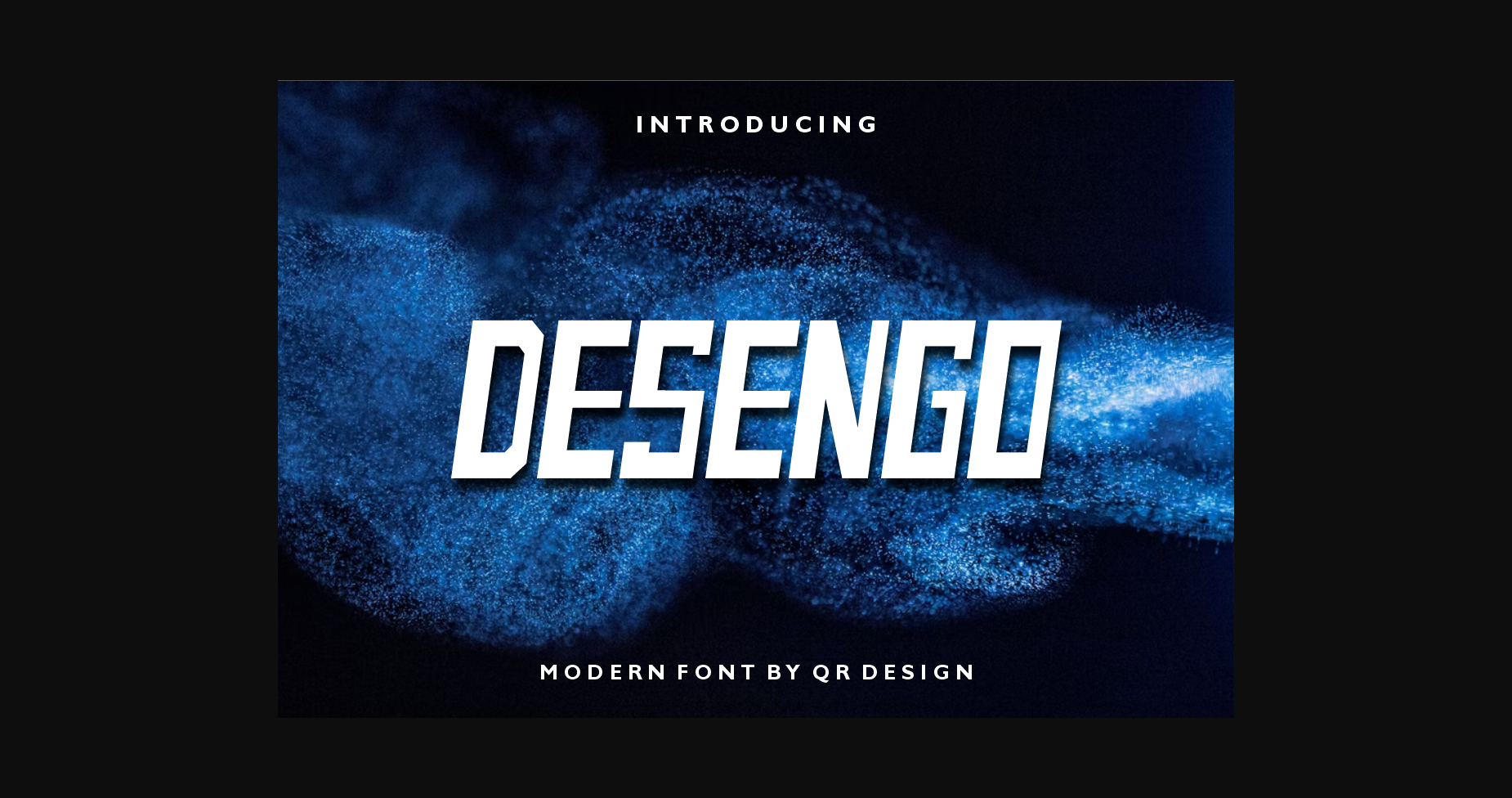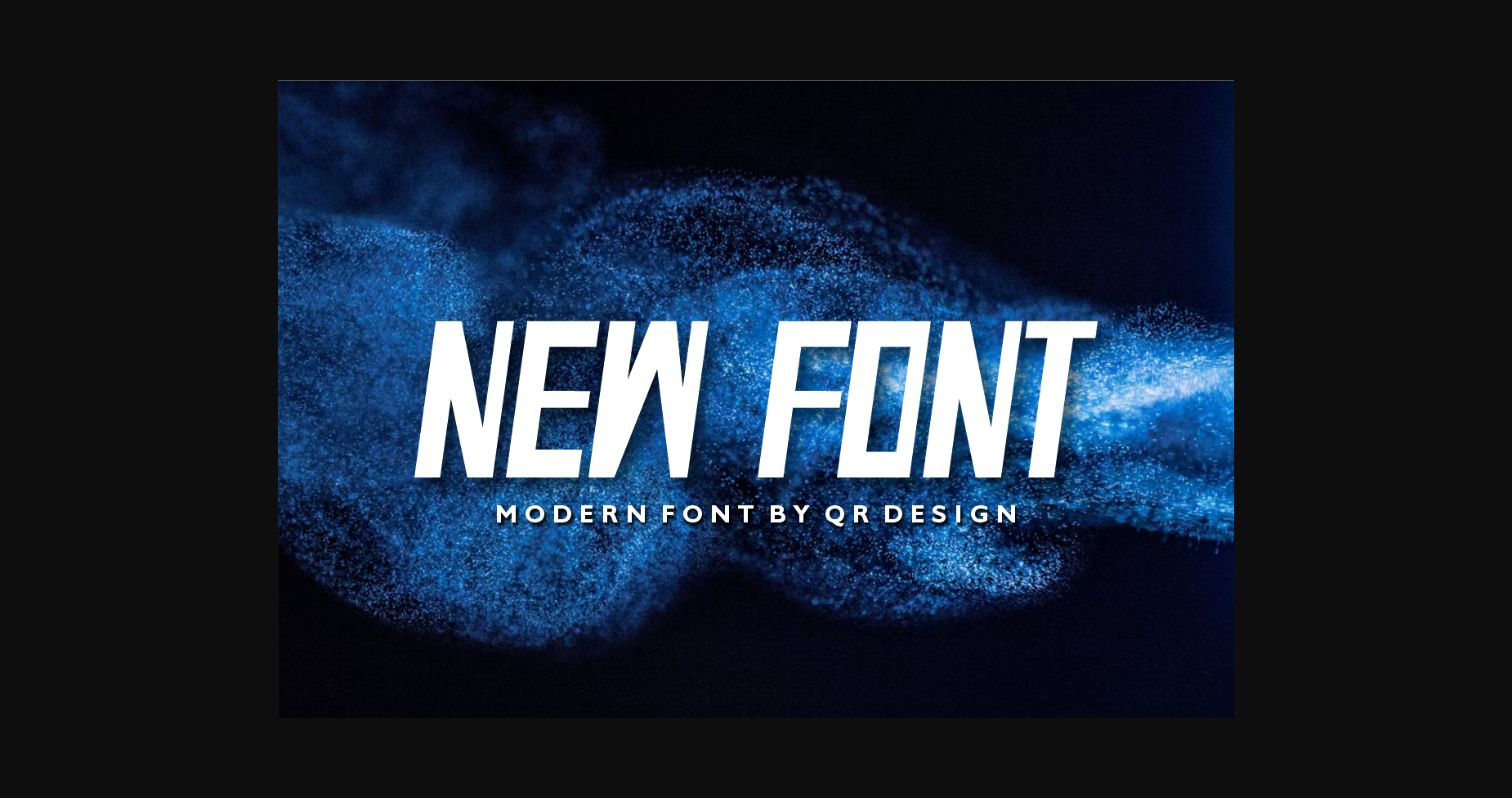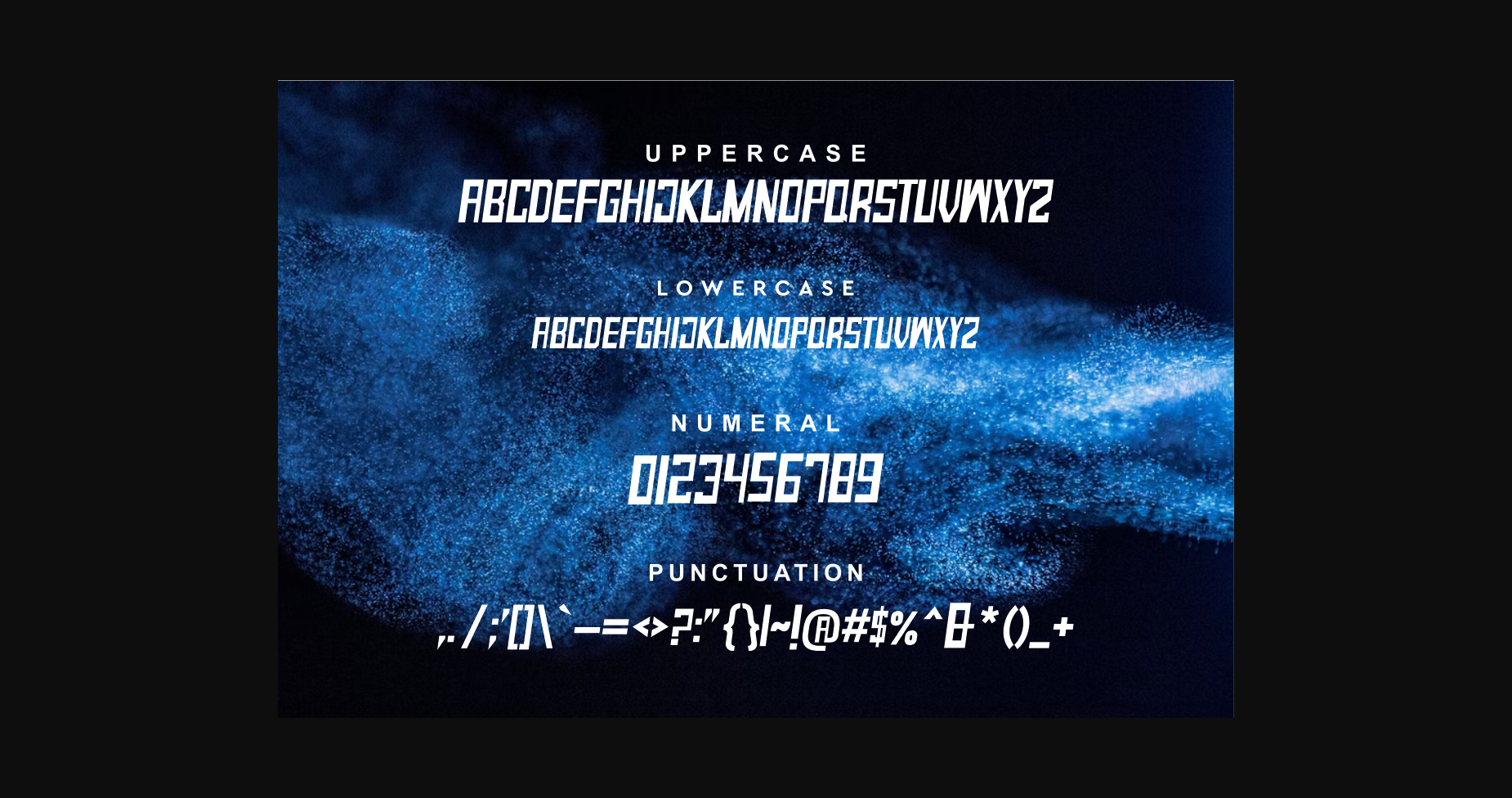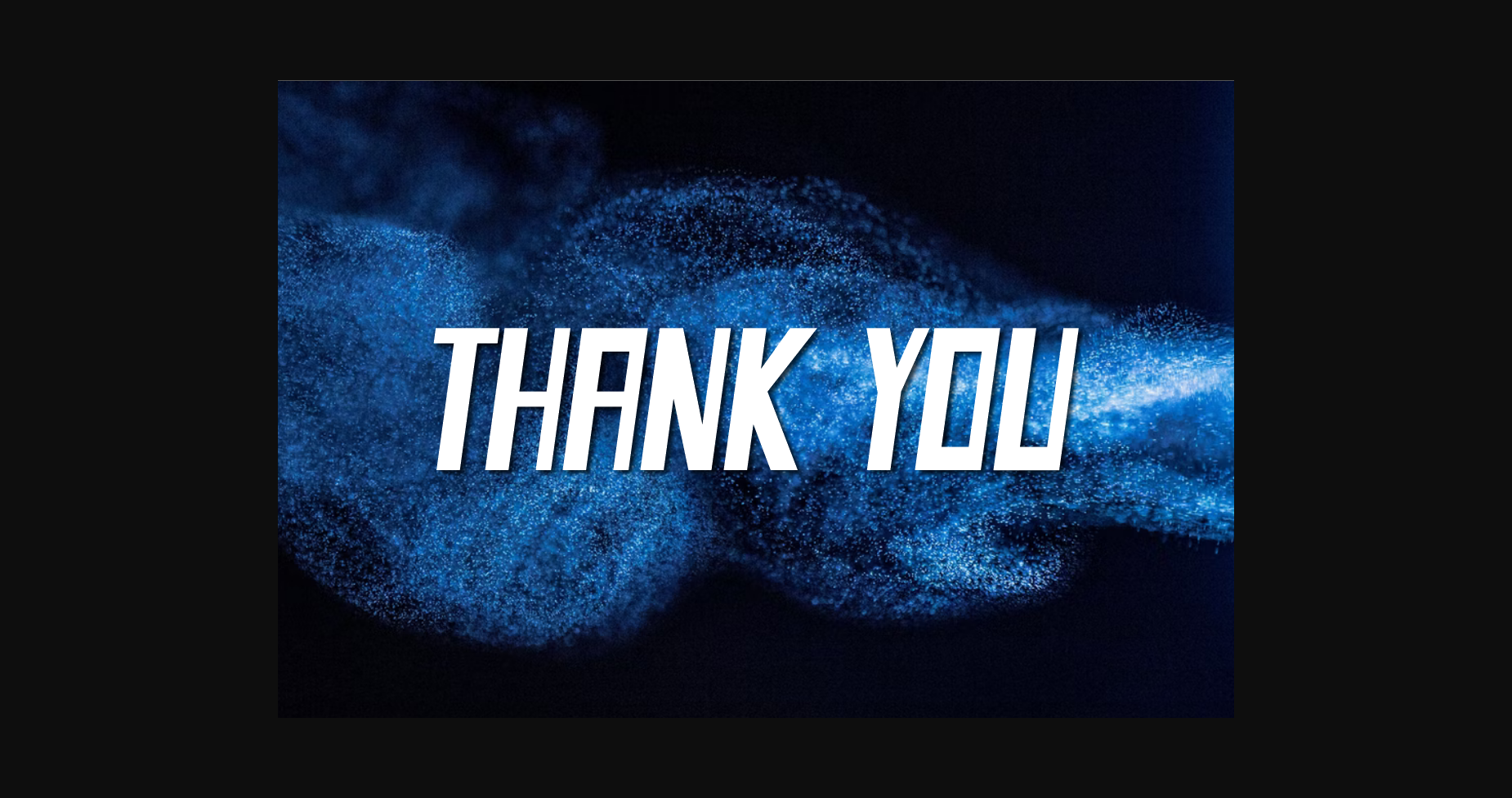
About Desango Font
Desango is a unique and modern sans serif font defined by geometric characters. It is the perfect gaming font, and it is capable of taking your projects out of the ordinary. Add it with confidence to your projects, and you’ll love the results!